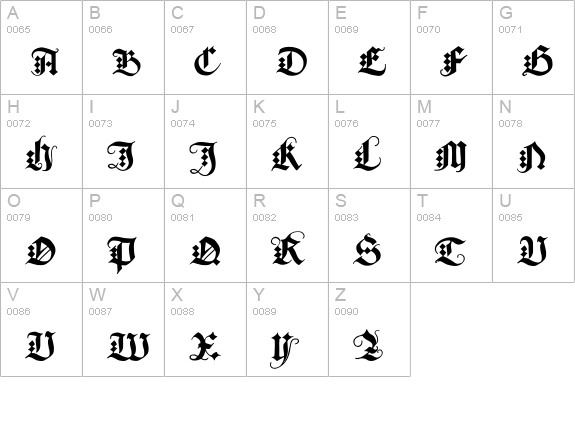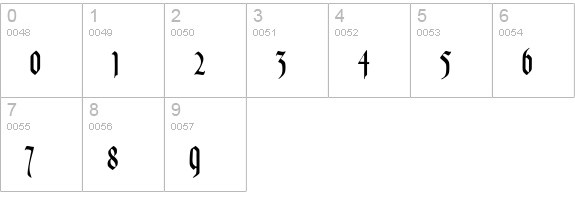
DuerersMinuskeln Font Details
DuerersMinuskeln font is a stunning typeface that captures the essence of classic calligraphy with a modern twist. Its elegant and delicate strokes make it perfect for adding a touch of sophistication to any project. The font features a unique blend of traditional and contemporary elements, resulting in a truly versatile and eye-catching design. With its intricate details and graceful curves, DuerersMinuskeln font is ideal for creating memorable logos, branding materials, wedding invitations, and more. Its timeless appeal and timeless appeal make it suitable for a wide range of applications, from elegant and formal to trendy and modern. One of the best things about DuerersMinuskeln font is that it is completely free and available for download at FontsMarket.com. This means that you can easily access this exquisite typeface and use it in any personal or commercial project without any restrictions. Whether you are a designer, artist, or simply someone who appreciates the beauty of typography, DuerersMinuskeln font is a must-have addition to your font collection. So go ahead and download DuerersMinuskeln font today from FontsMarket.com and let your creativity soar with this stunning typeface. With its seamless blend of classic elegance and contemporary style, it is sure to elevate your designs to new heights. Don't miss out on this incredible opportunity to enhance your projects with the timeless beauty of DuerersMinuskeln font.